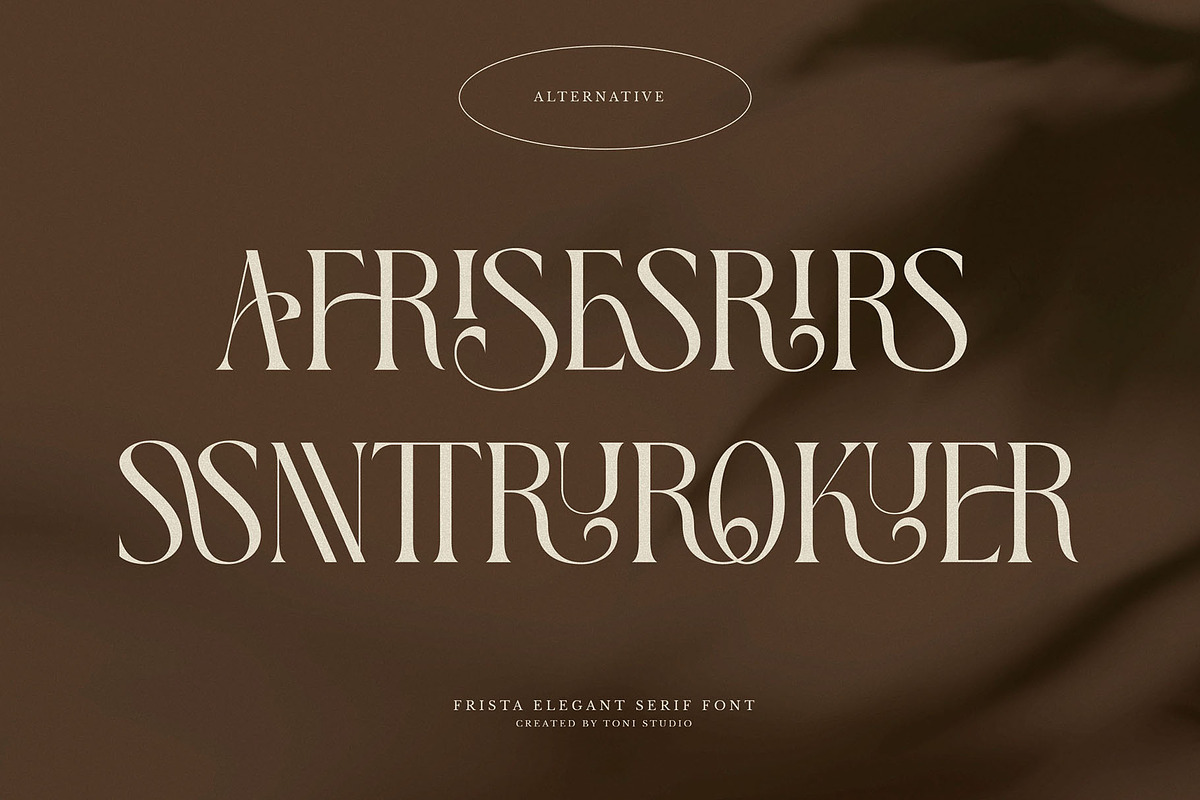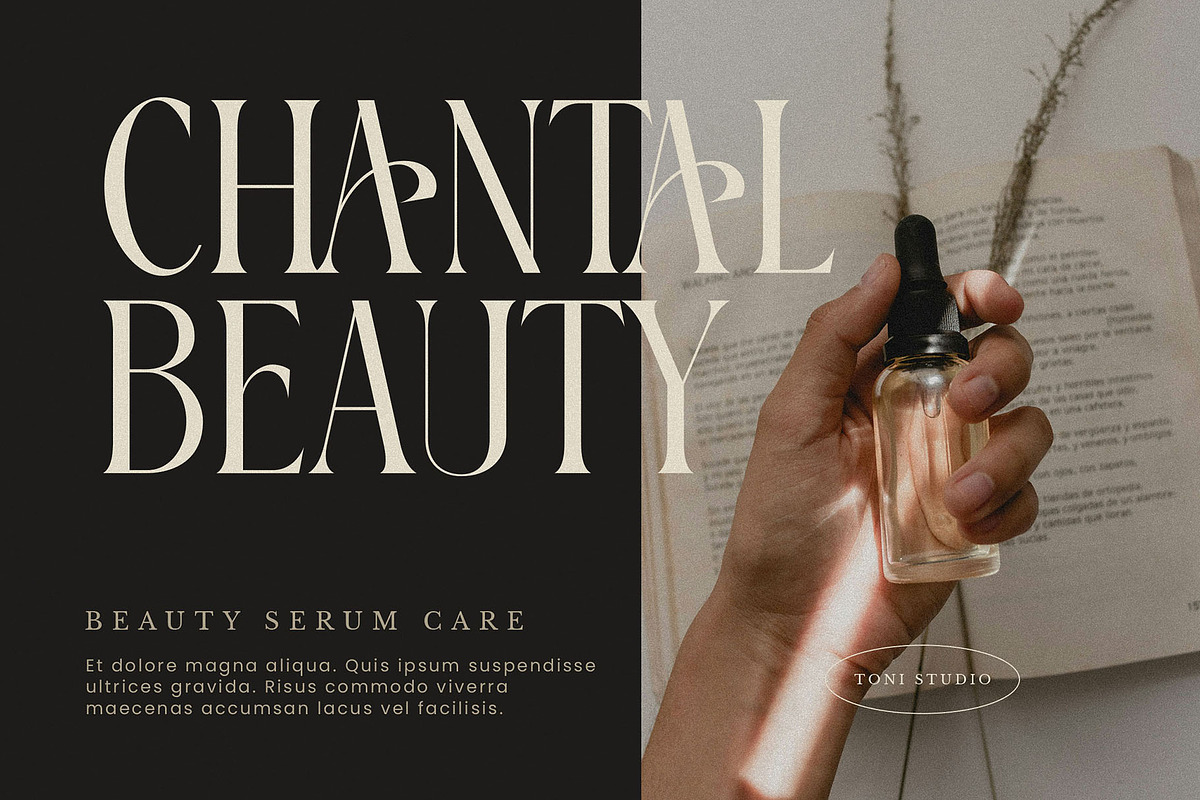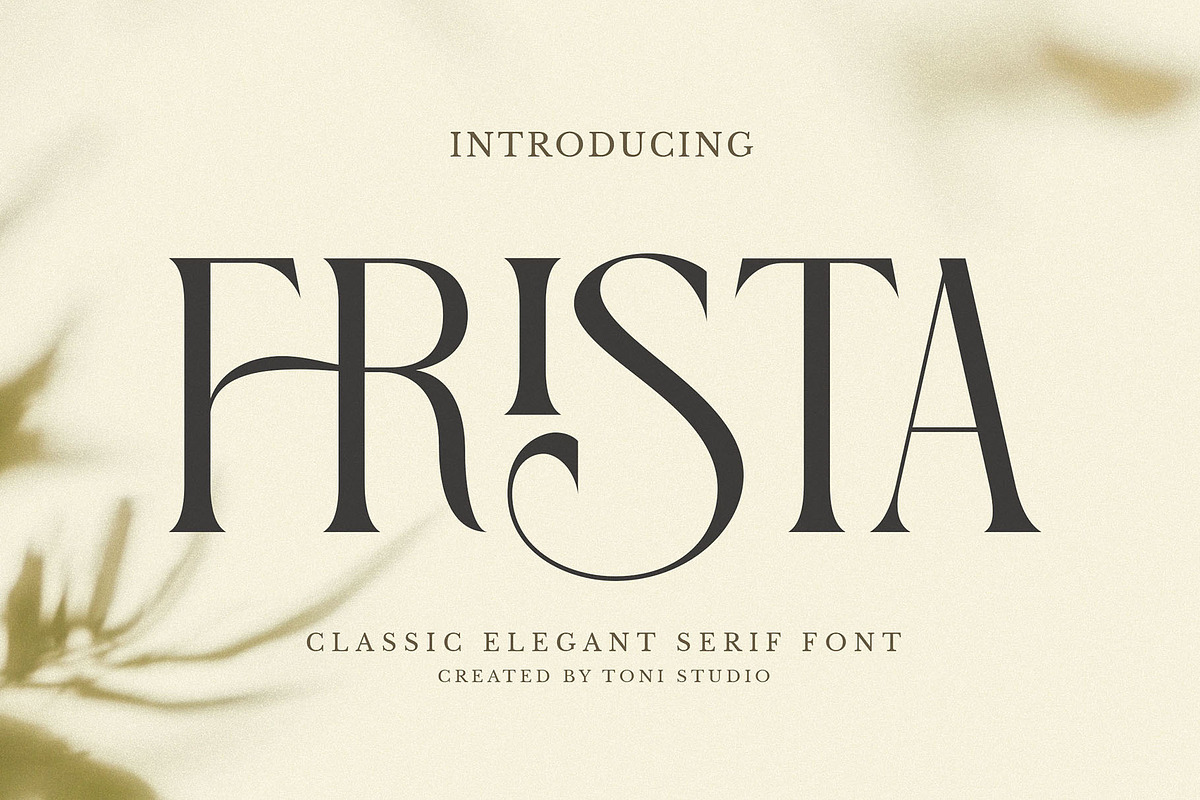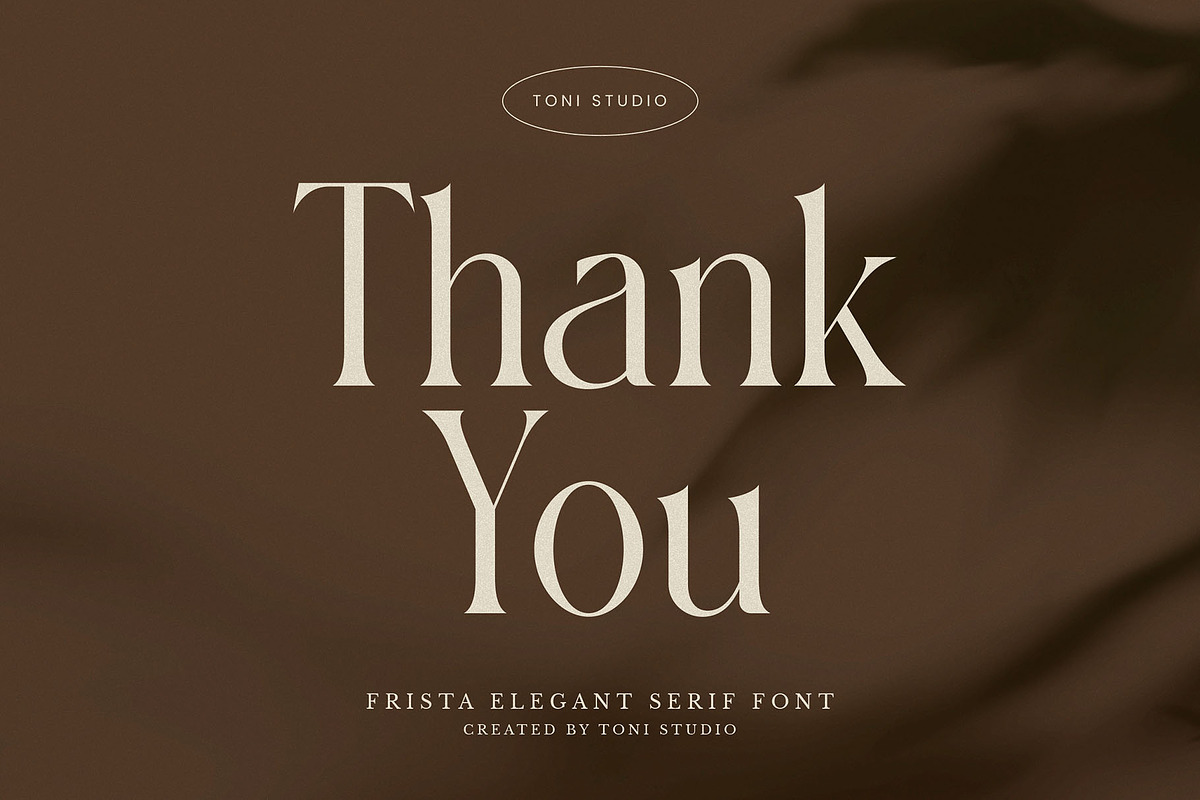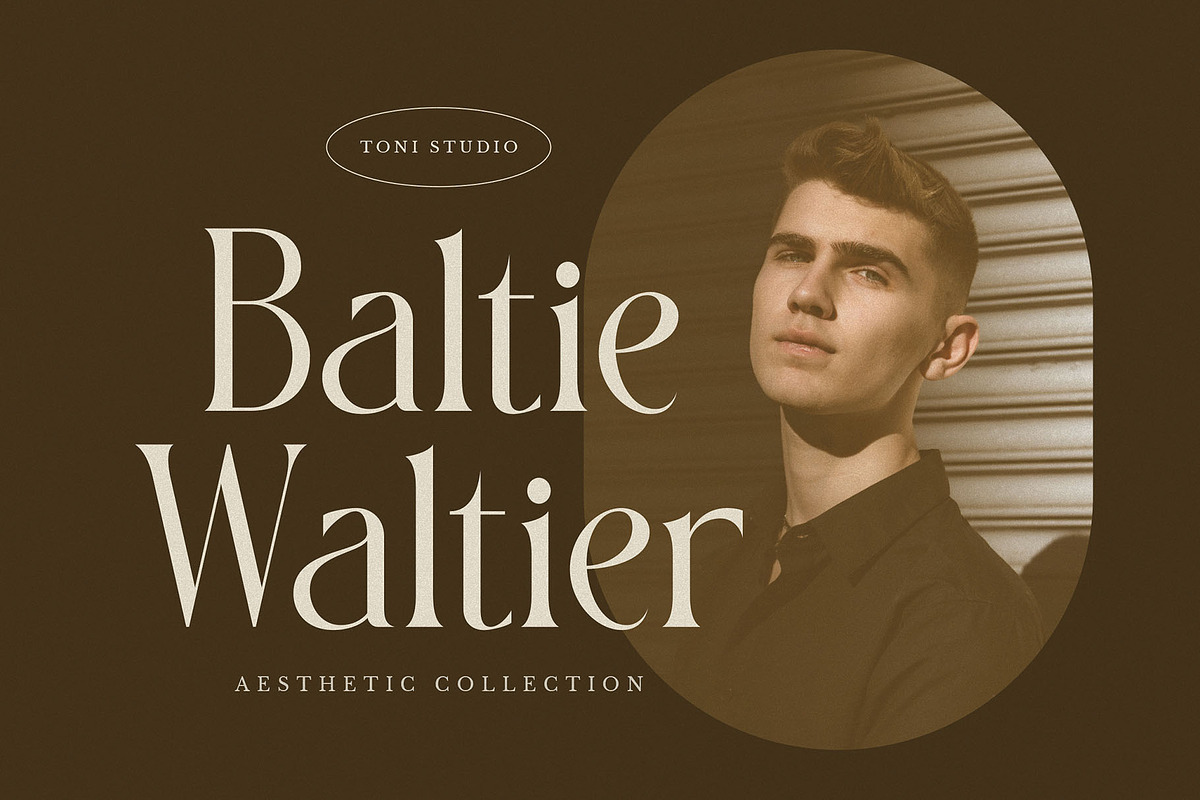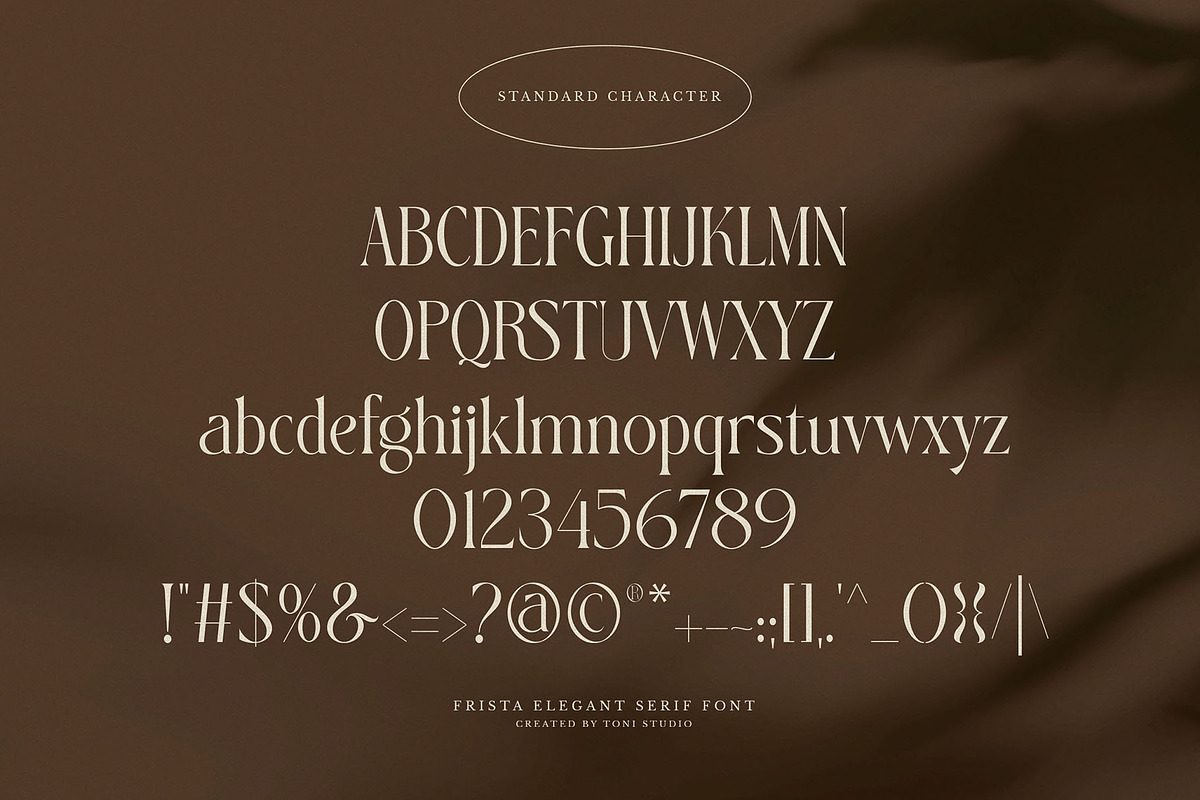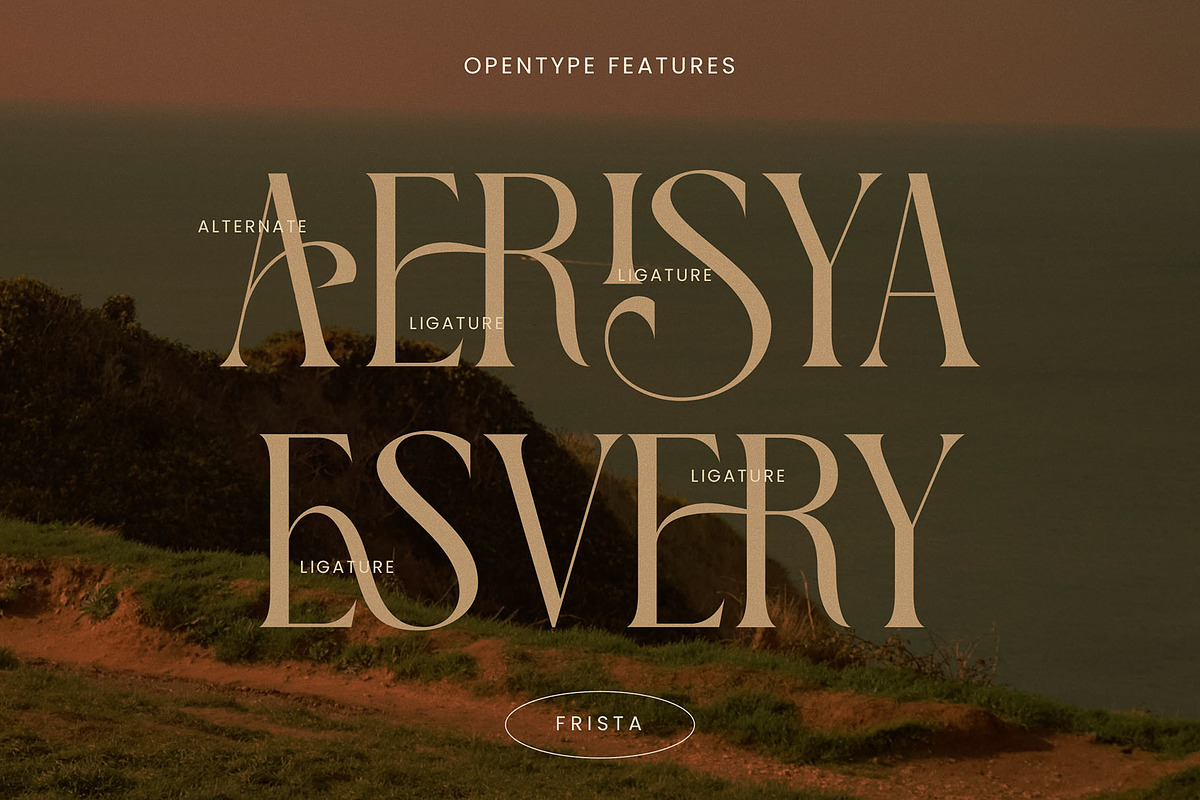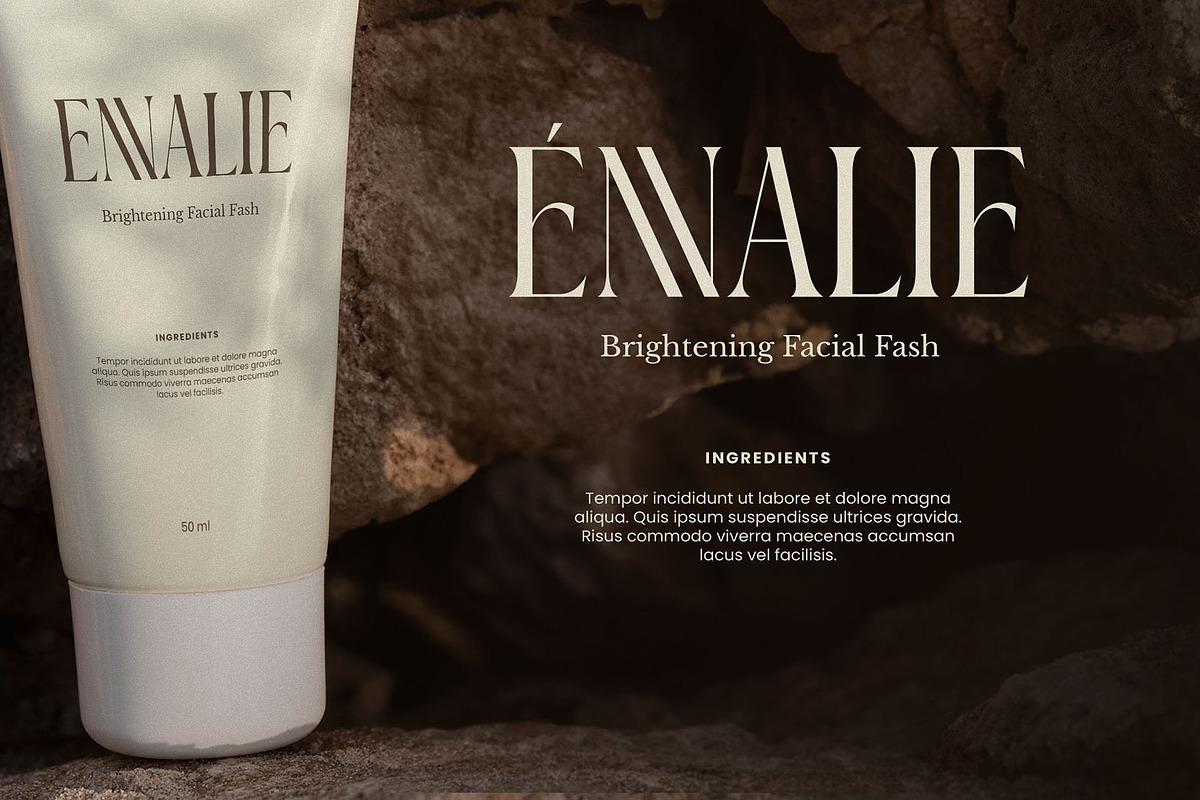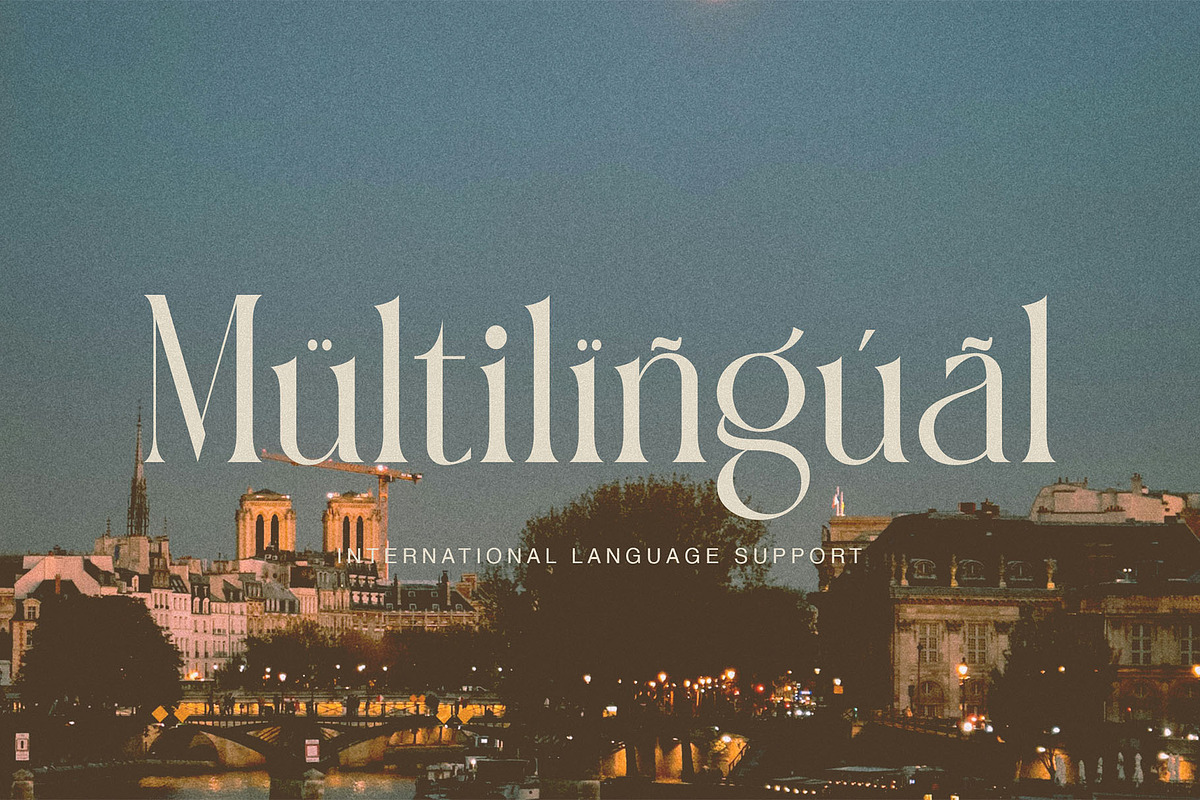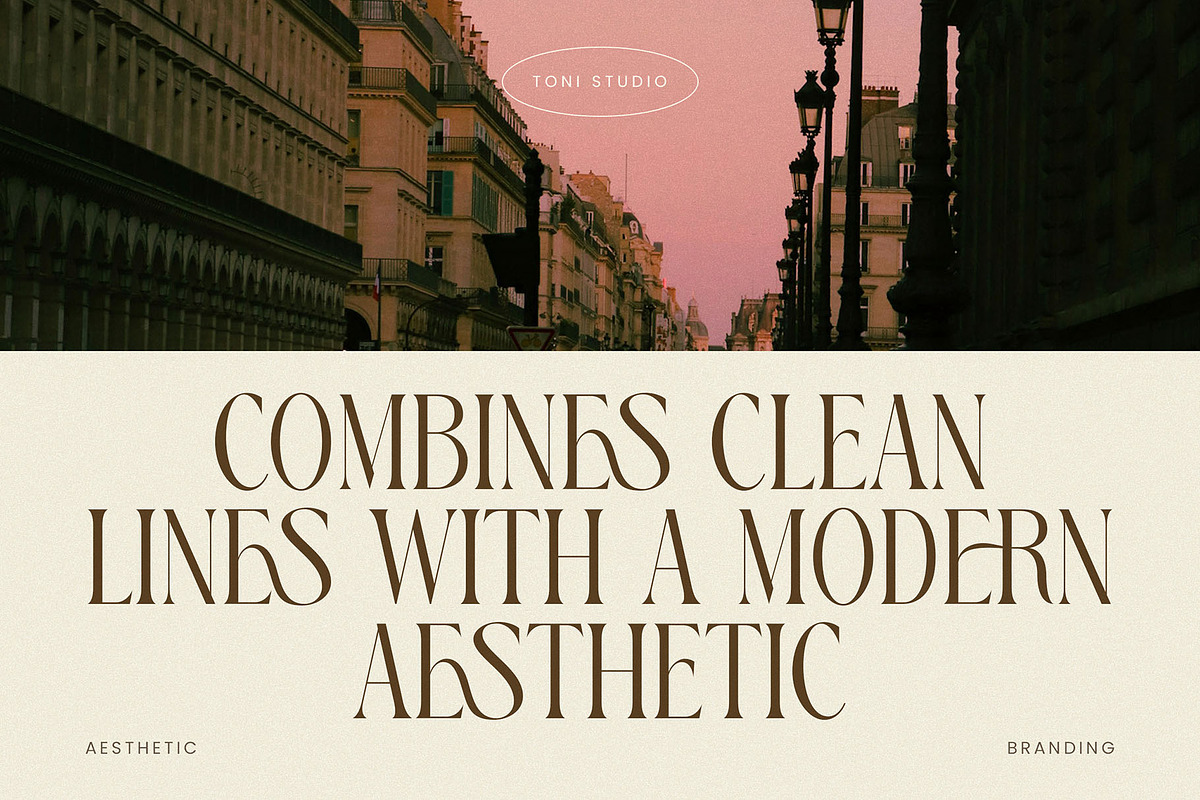
FRISTA || modern ligature
Introducing the new FRISTA ligature serif font!!! FRISTA is a modern font that conveys a sense of elegance and class, offering beautiful typographic harmony for a variety of design projects. This font is perfect for elegant & luxury logos, classy editorial designs, women's magazines, fashion brands, cosmetic brands, fashion promotions, modern advertising designs, invitation cards, art quotes, home decor, book titles/covers, special events, tote bags. , Advertisements and more.